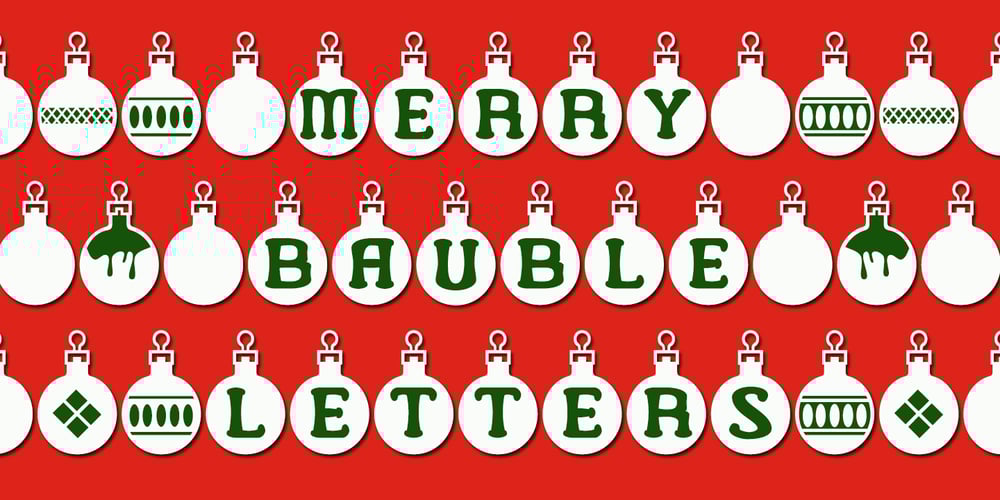
Merry Bauble Letters Font Family was designed by Paul James Lloyd and published by Greater Albion Typefounders. Merry Bauble Letters contains 1 styles and family package options. Merry Bauble Letters is designed to complement our ‘Merry Baubles’ fleuron typeface. Quite simply, it’s a set of Christmas Tree ornaments with letters painted on them…